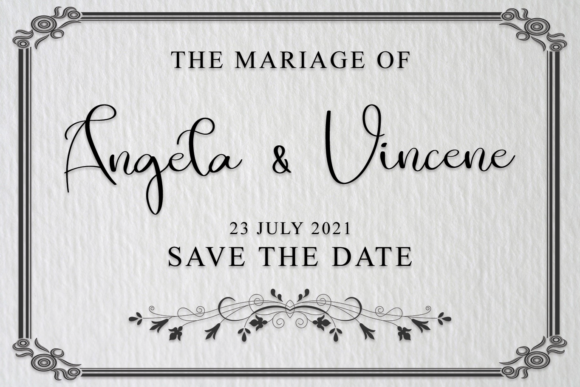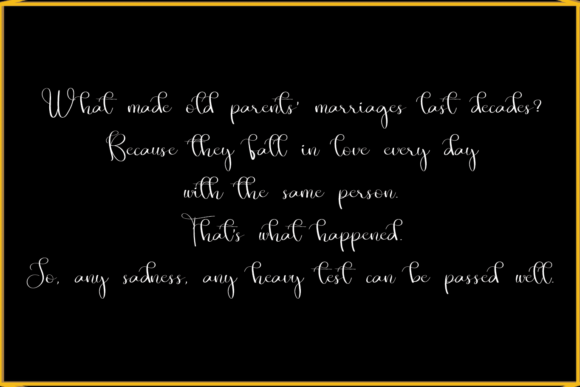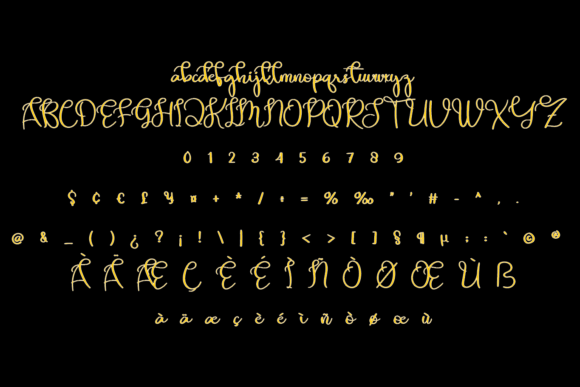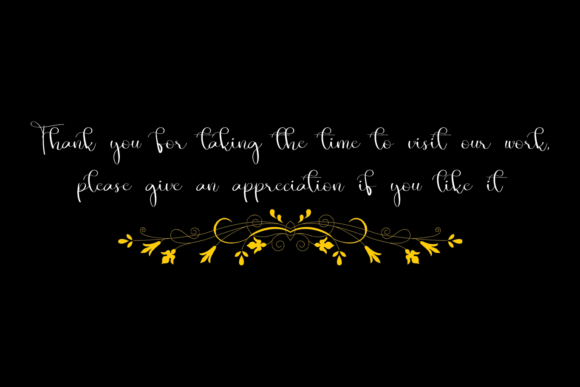
The Shocking Font
About The Shocking Font
Introducing The Shocking, a beautiful and refined script font that exudes class, elegance, and a modern touch. With its stylish and sophisticated look, The Shocking is perfect for a wide range of design projects.
This font is designed to elevate your branding, logos, invitations, stationery, wedding designs, social media posts, and more. Its graceful letterforms and smooth curves create a sense of luxury and sophistication, making it an excellent choice for projects that require an upscale and polished appearance.
The Shocking brings a touch of elegance to your designs, adding a sense of sophistication and professionalism. Its clean lines and precise detailing give it a modern and contemporary feel, making it suitable for a wide range of design styles and themes.
Whether you’re creating a logo for a high-end brand, designing wedding invitations for a luxurious event, or crafting stylish social media posts, The Shocking will help you achieve a refined and visually stunning result.
The versatility of The Shocking allows it to be used in various design applications. Its legibility and readability make it suitable for both small and large text sizes, ensuring that your message is conveyed effectively.
Additionally, The Shocking is highly compatible with other design elements. It can be paired with complementary fonts, decorative elements, or illustrations to create a harmonious and visually appealing composition.
One of the key features of The Shocking is its ability to evoke emotion and capture attention. Its elegant and refined appearance makes it stand out, helping your designs make a lasting impression on viewers.
Overall, The Shocking is a beautiful and refined script font that adds a touch of class, elegance, and modernity to your designs. Whether you’re working on branding, invitations, stationery, or social media posts, The Shocking will elevate your projects and leave a lasting impression. Embrace the beauty and sophistication of The Shocking and create stunning designs that captivate your audience.